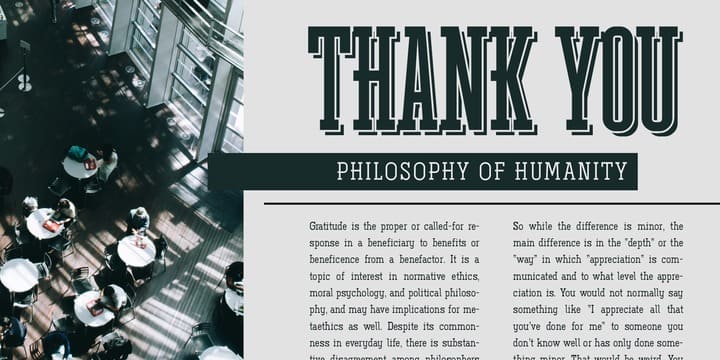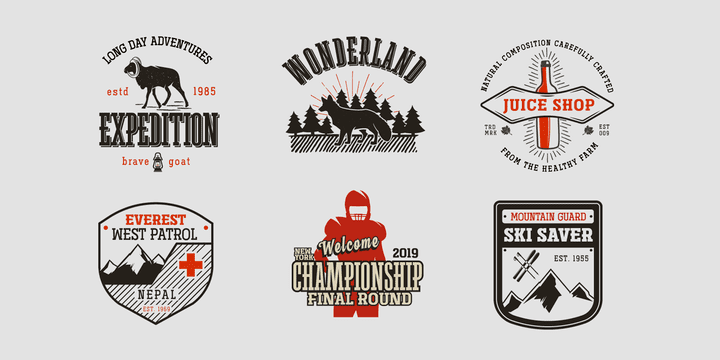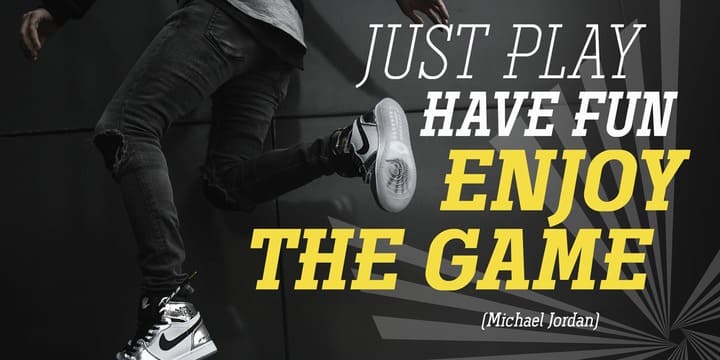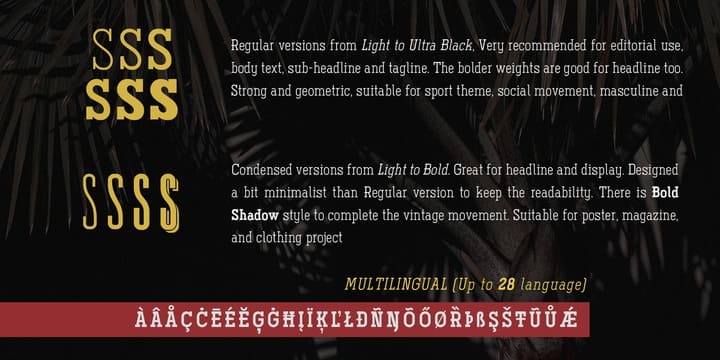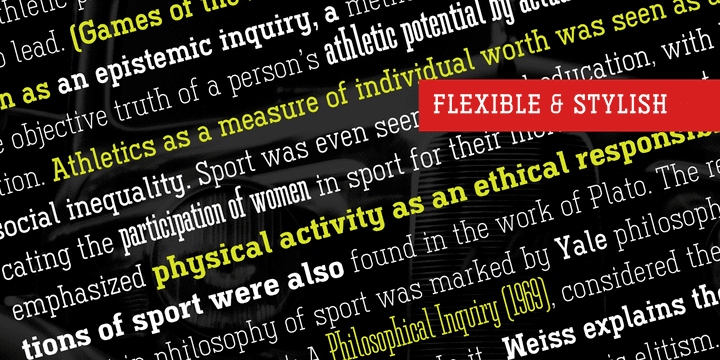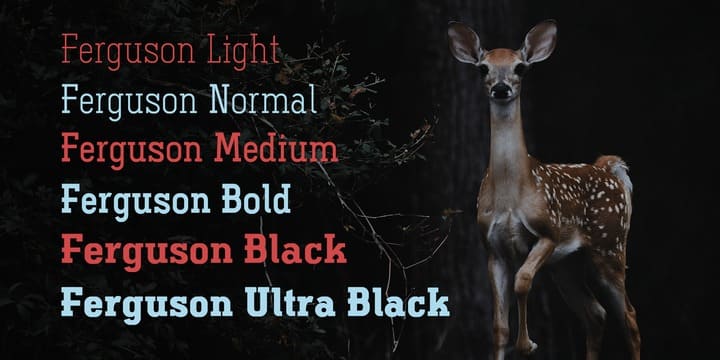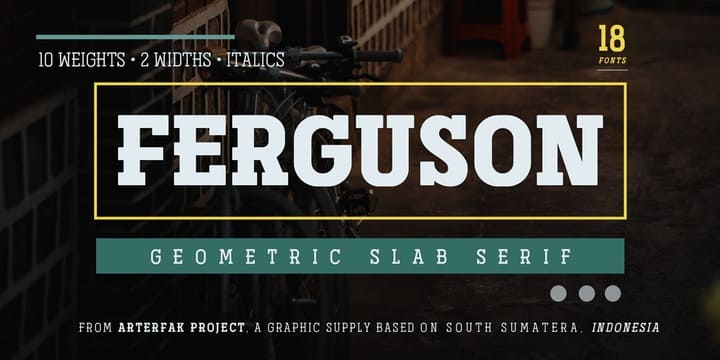
Ferguson is a geometric slab serif which made with a mono-line concept and versatile style. Inspired by old western and magazine designs. Ferguson has a straight and consistent line to give neat looks. Ferguson is made for editorial and formal purposes. but still flexible to use it in other typographic projects. This font family has 6 weights and 2 widths that gives you many options on your designs projects. - Regular versions: Comes from Light, Normal, Medium, Bold, Black, and Ultra Black. Very recommended for editorial use such as body text, sub-headline, and tagline. The bolder weights are goods for the headline too. Strong and geometric! Suitable for sports themes, social movement, masculine and logotypes. - Condensed versions: Available in Light, Normal and Bold. A great choice for a headline, and display. This condensed designed a bit minimalist than a regular version to keep the readability. Also, there is Bold Shadow style to complete the vintage movement which happening now. Suitable for a poster, magazines, and clothing project.